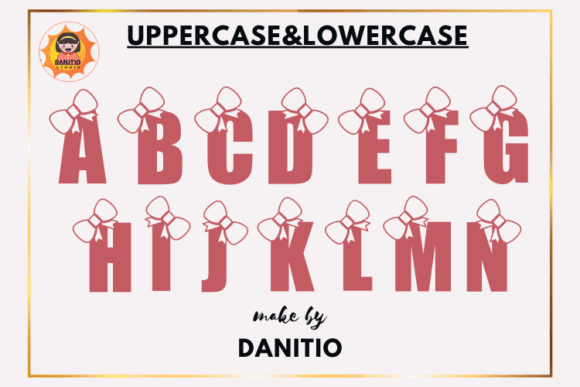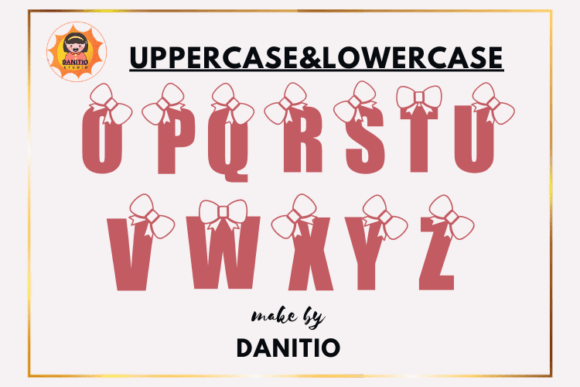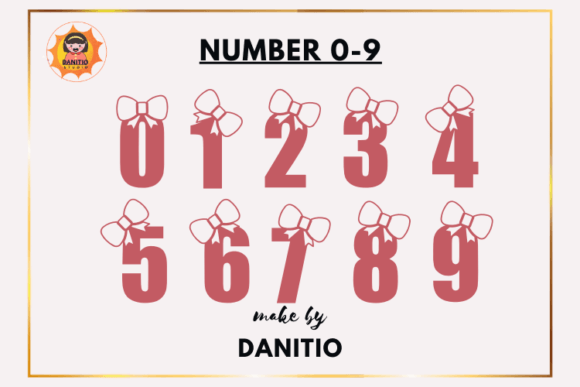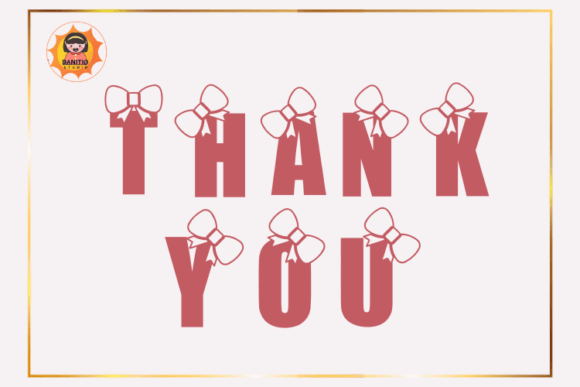
The Sweet Charm of Bow Tie Font: A Designer’s Delight
I still remember the time I was working on a project for a client’s birthday card. I had all the design elements in place, but something was missing – the perfect font. The client wanted something cute, playful, and festive, but I just couldn’t seem to find it. That’s when I stumbled upon the Bow Tie font, and it instantly became the star of the show! ✨
In this article, I’ll share my experience with the Bow Tie font, its unique features, and how to make the most of it in your designs. Whether you’re a designer, crafter, or creative hobbyist, you’ll love the sweet charm of this font.
An Honest Review of Bow Tie Font
• ✨ The Bow Tie font has a gentle, sweet character that’s perfect for festive designs, such as holiday cards, party invitations, or special occasion decor.
• ✅ The font comes with pretty bows that can be used as decorations to make your designs more engaging and visually appealing.
• 🎉 It’s versatile and can be used for various projects, including crafts, digital designs, presentations, or greeting cards.
While the Bow Tie font is a delightful addition to any design, there are a few things to keep in mind: 🤔
• ⚠️ The font’s bows can be a bit finicky when it comes to sizing and placement. You may need to experiment with different sizes and positions to get the desired effect.
• ⚠️ Some users may find the font’s sweetness a bit too much for certain projects. However, this is largely a matter of personal taste!
The Backstory of Bow Tie Font
The Bow Tie font was designed by a talented typographer who wanted to create a font that would add a touch of whimsy and playfulness to any design. Inspired by the charm of traditional ribbons and bows, the designer crafted a font that would be perfect for festive occasions and special events.
Font Name Bow Tie Font
Author danita.kukkai
Q: What is the Bow Tie font best used for?
A: The Bow Tie font is perfect for festive designs, such as holiday cards, party invitations, or special occasion decor.